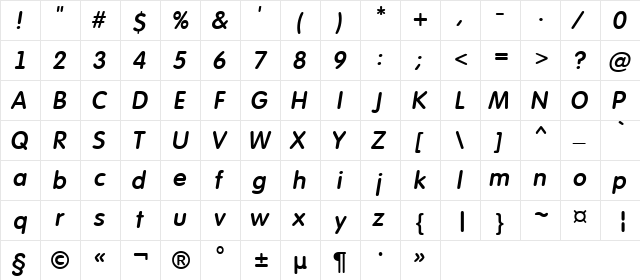
a_FuturaRoundDemi Italic
Design Context for a_FuturaRoundDemi Typeface
a_FuturaRoundDemi has a distinctly futuristic character, with geometric precision and clean angles that feel at home in technology, gaming, and sci-fi contexts. Its italic angle brings a sense of urgency and motion to the letterforms.